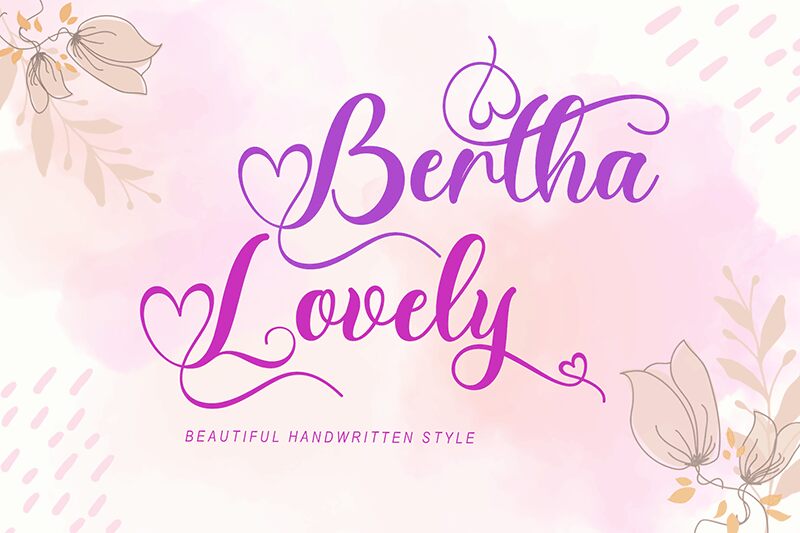
Bertha Lovely
Bertha Lovely font by Yoga Letter is a free holiday calligraphy typeface that wraps every word in soft, romantic energy. Loose, flowing strokes, inky textures, and heart-shaped flourishes turn simple phrases into something that feels handwritten on keepsake stationery. The letters link with an easy rhythm—neither too stiff nor too wild—so your message stays legible while still feeling special and a little bit indulgent.
Using Bertha Lovely, your Valentine cards, wedding signage, bridal shower invites, gift tags, social media quotes, and love notes instantly feel more personal. This free font shines when you give it space to breathe, so set it large for names or short phrases and pair it with a clean sans serif for the details.